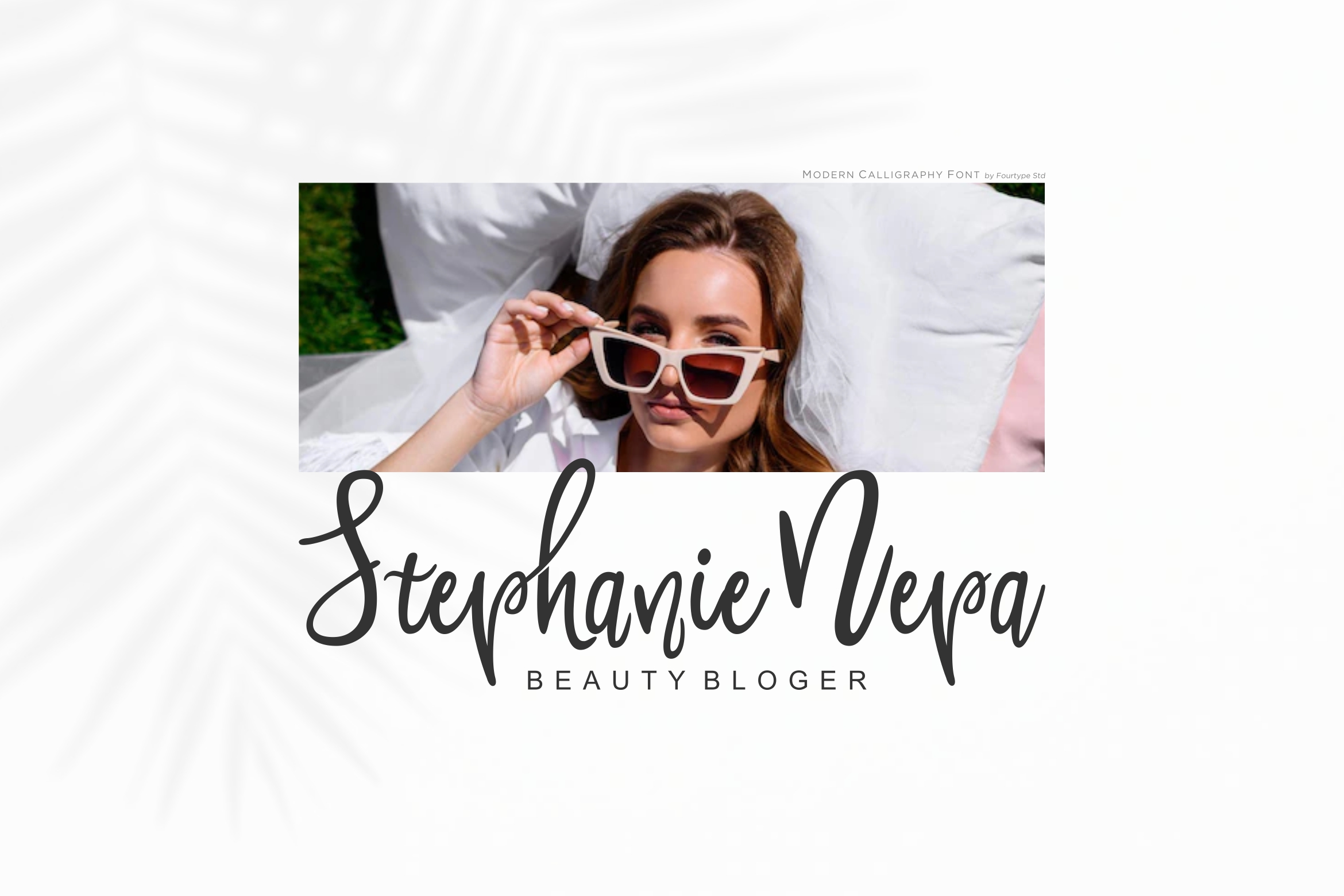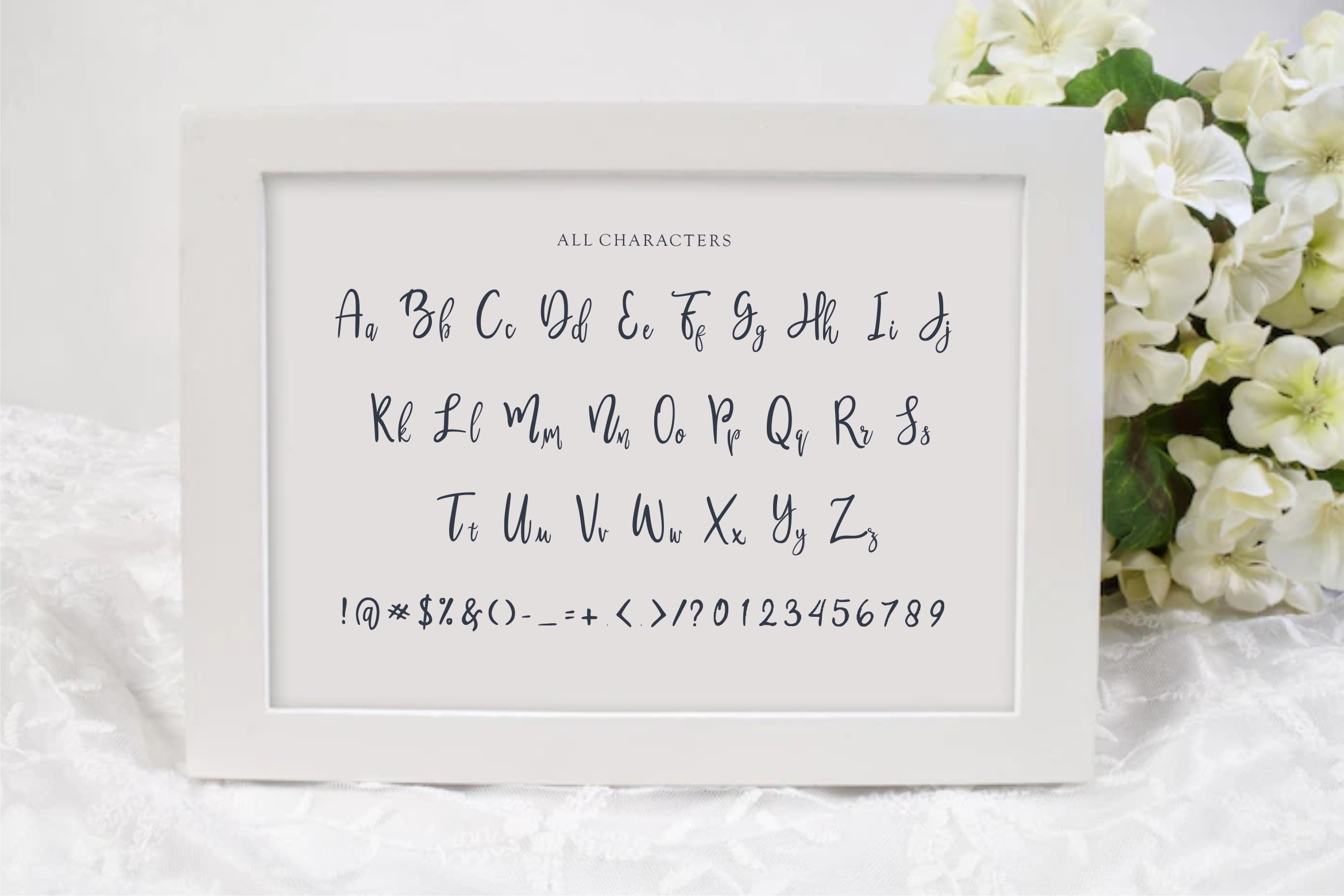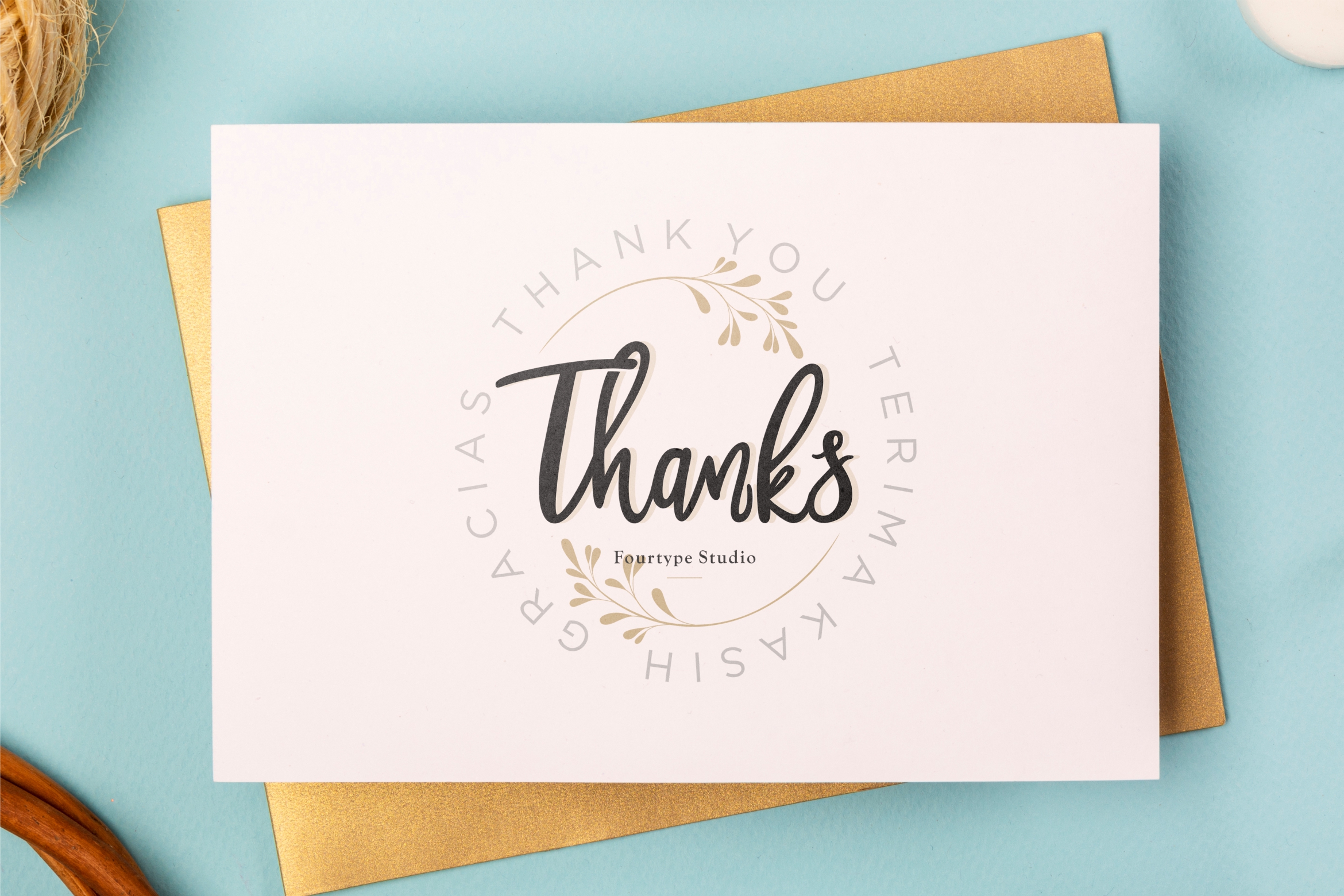
Bridesmaids Font is an exquisite handwritten font, masterfully designed to become a true favorite. It maintains its classy calligraphic influences while feeling contemporary and fresh. Fall in love with it and bring your projects to the highest levels!